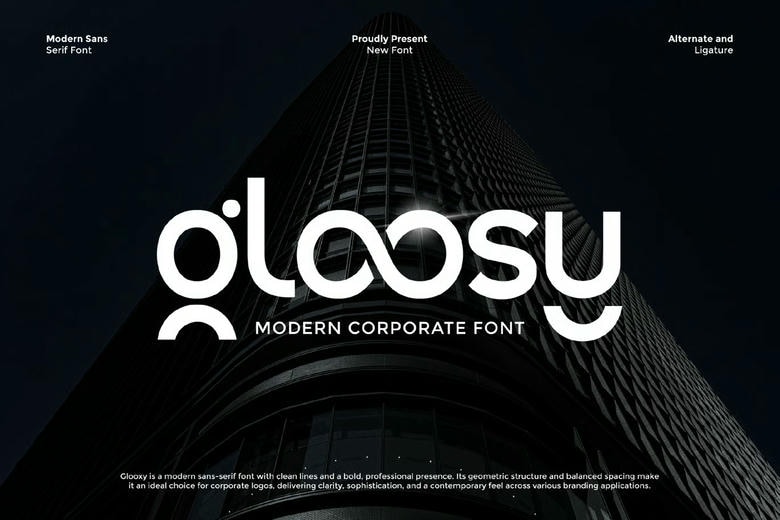
Gloosy Font
GLOOSY is a professional and elegant sans serif font that will become your brand booster in terms of clarity and quality. Its warm curvature, purity of lines, and contemporary proportions render it an ultimate solution on any project, which requires a confident and modern appearance.
Be it the powerful brand image or the modern flair relying on the technological and editorial environments, GLOOSY leaves a clean, credible impression.
Gloosy Sans Serif Font